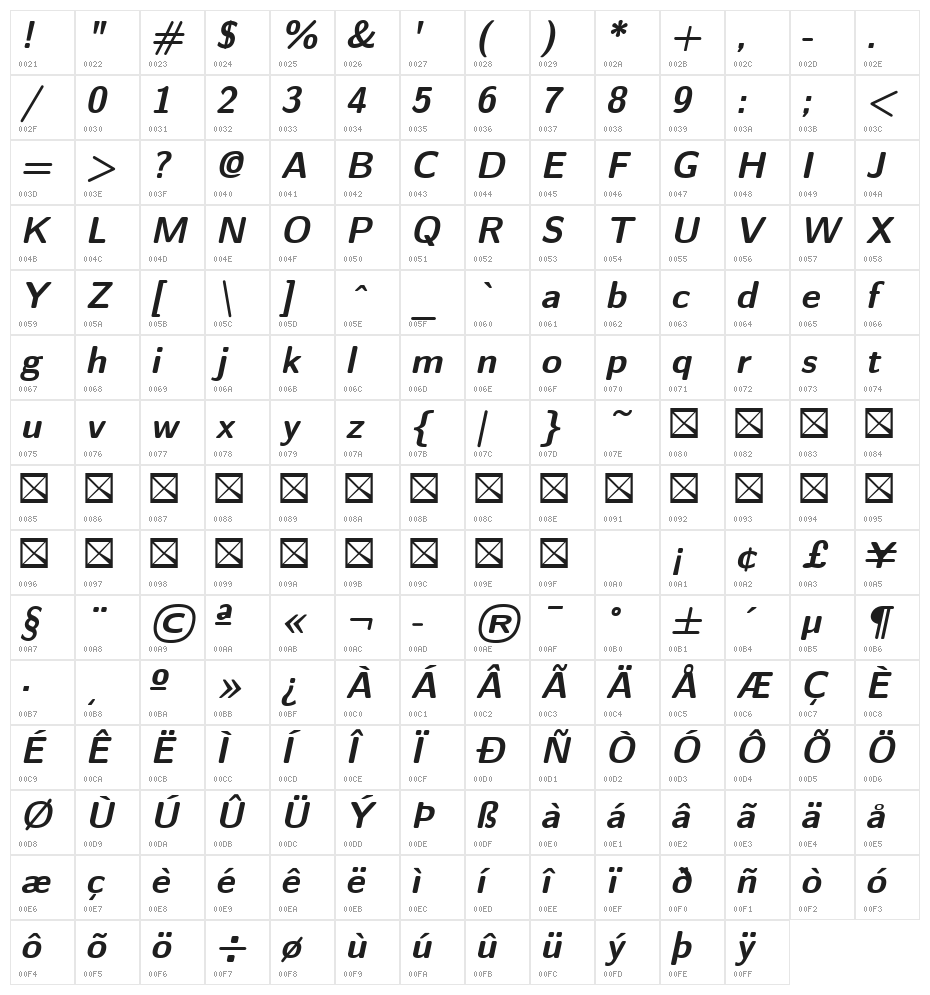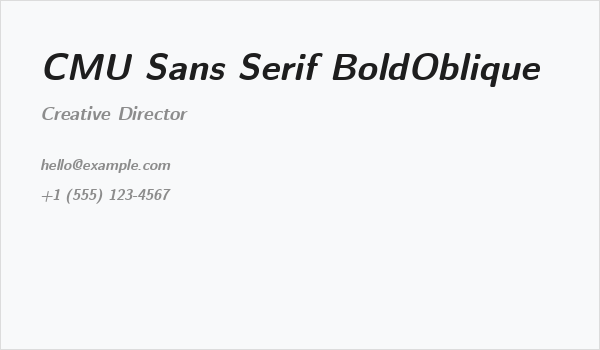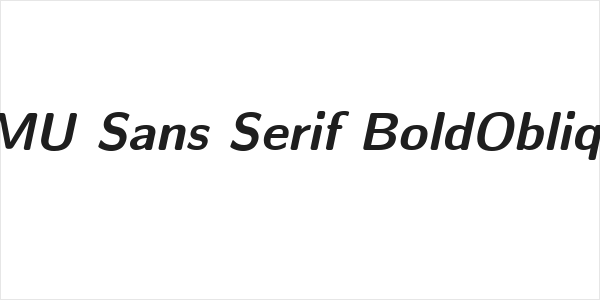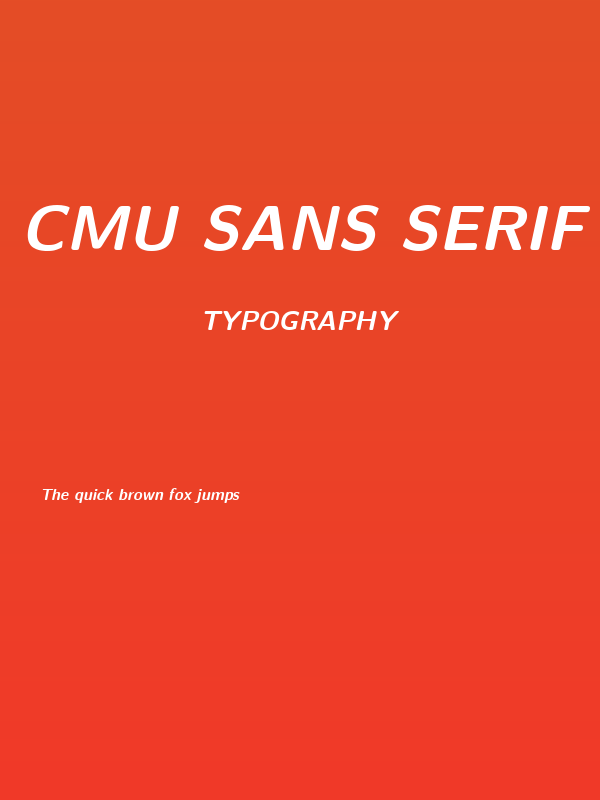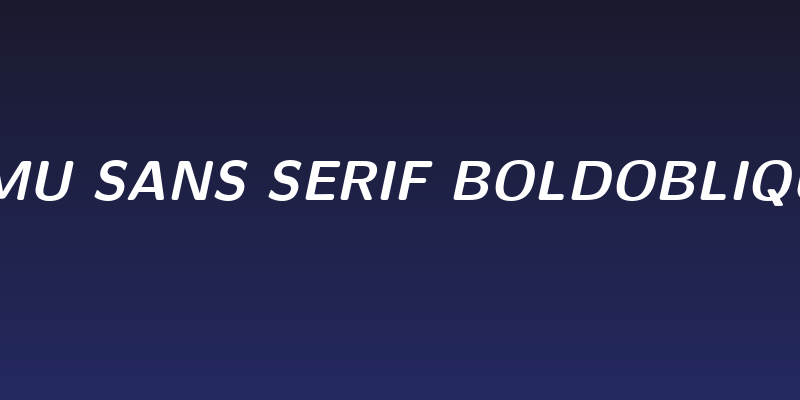
CMU Sans Serif BoldOblique Font
CMU Sans Serif BoldOblique Description
This font is a bold and oblique sans-serif typeface that exudes a modern and dynamic feel. The characters are clean and straightforward, with a slight slant that adds a sense of motion and energy. The bold weight ensures strong visibility and impact, making it suitable for attention-grabbing headlines. The sans-serif design contributes to its contemporary appearance, while the oblique style offers a touch of elegance and sophistication. The font maintains consistent stroke thickness, providing a uniform and balanced look across all characters. Its versatility makes it ideal for a variety of design projects.
| Use Case | Headlines, Logos, Advertising |
| Proposed Projects | Ideal for branding, advertising, headlines, and digital media where a strong, modern presence is desired. |